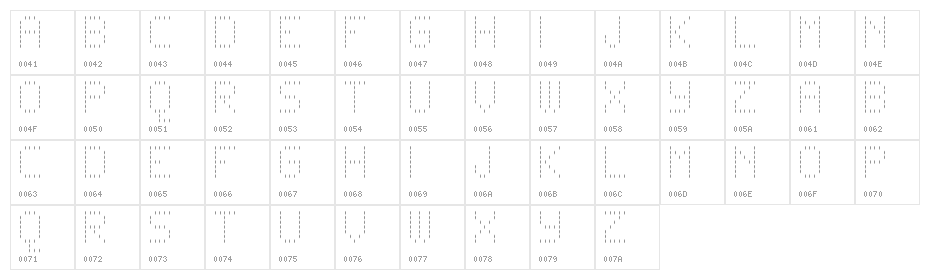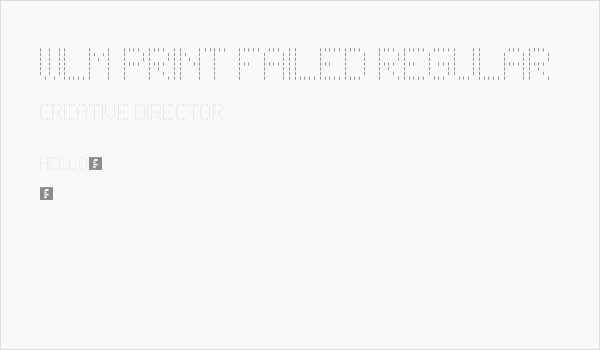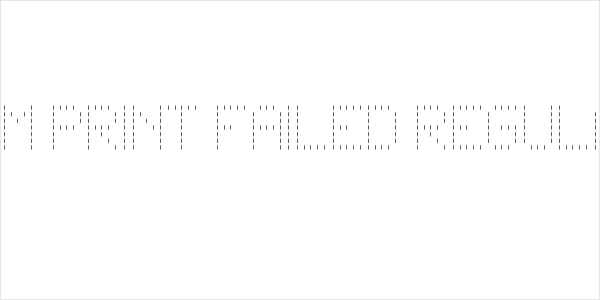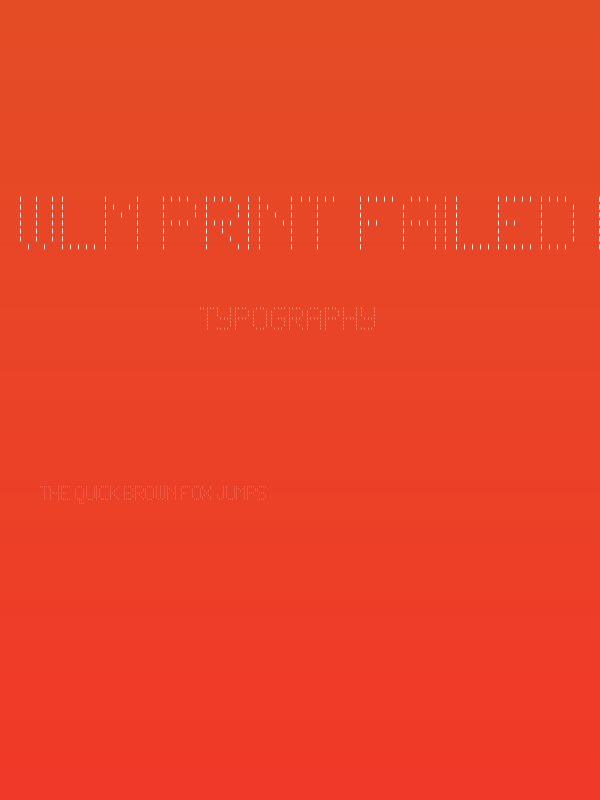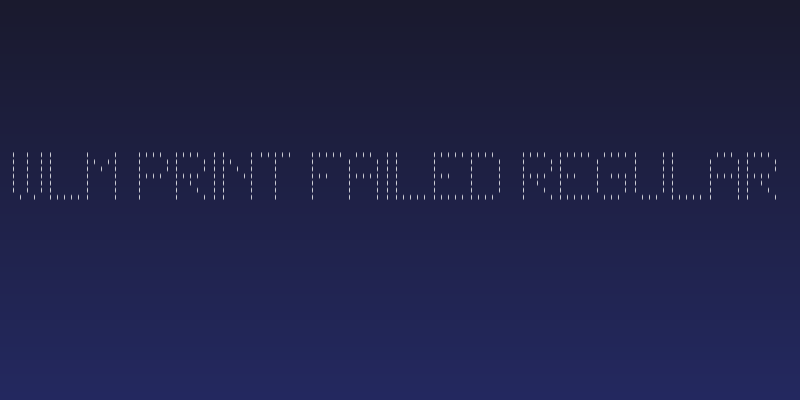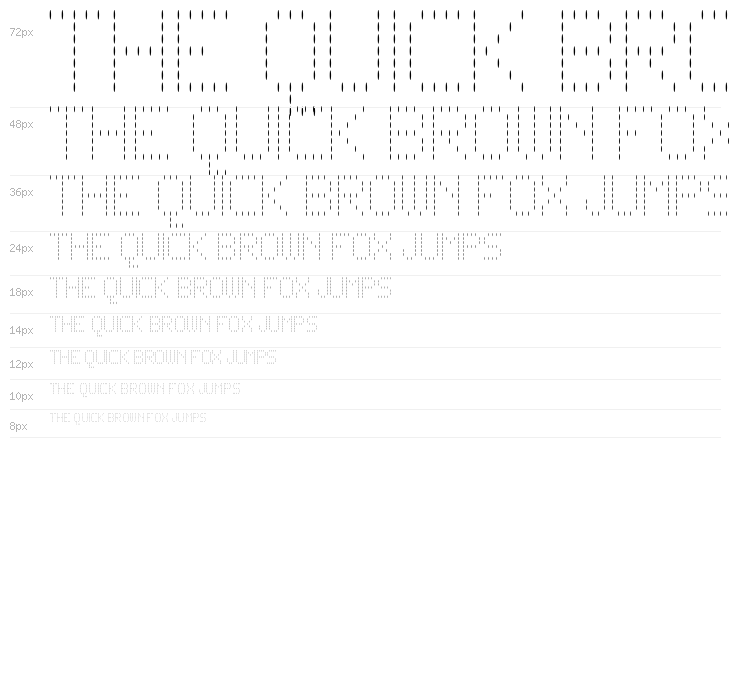
WLM Print Failed Regular Font
WLM Print Failed Regular Description
This font features a unique dot matrix style, reminiscent of old dot-matrix printers. Each character is composed of a series of small dots, creating a retro, digital appearance. The uppercase and lowercase letters maintain a consistent height, with a geometric and structured form. The numbers and special characters follow the same dotted pattern, ensuring uniformity across the character set. This font evokes a sense of nostalgia, ideal for projects that aim to capture a vintage or tech-inspired aesthetic.
| Use Case | Logos, Posters, Digital Art |
| Proposed Projects | Ideal for retro-themed designs, tech-inspired projects, digital art, and vintage computer graphics. |